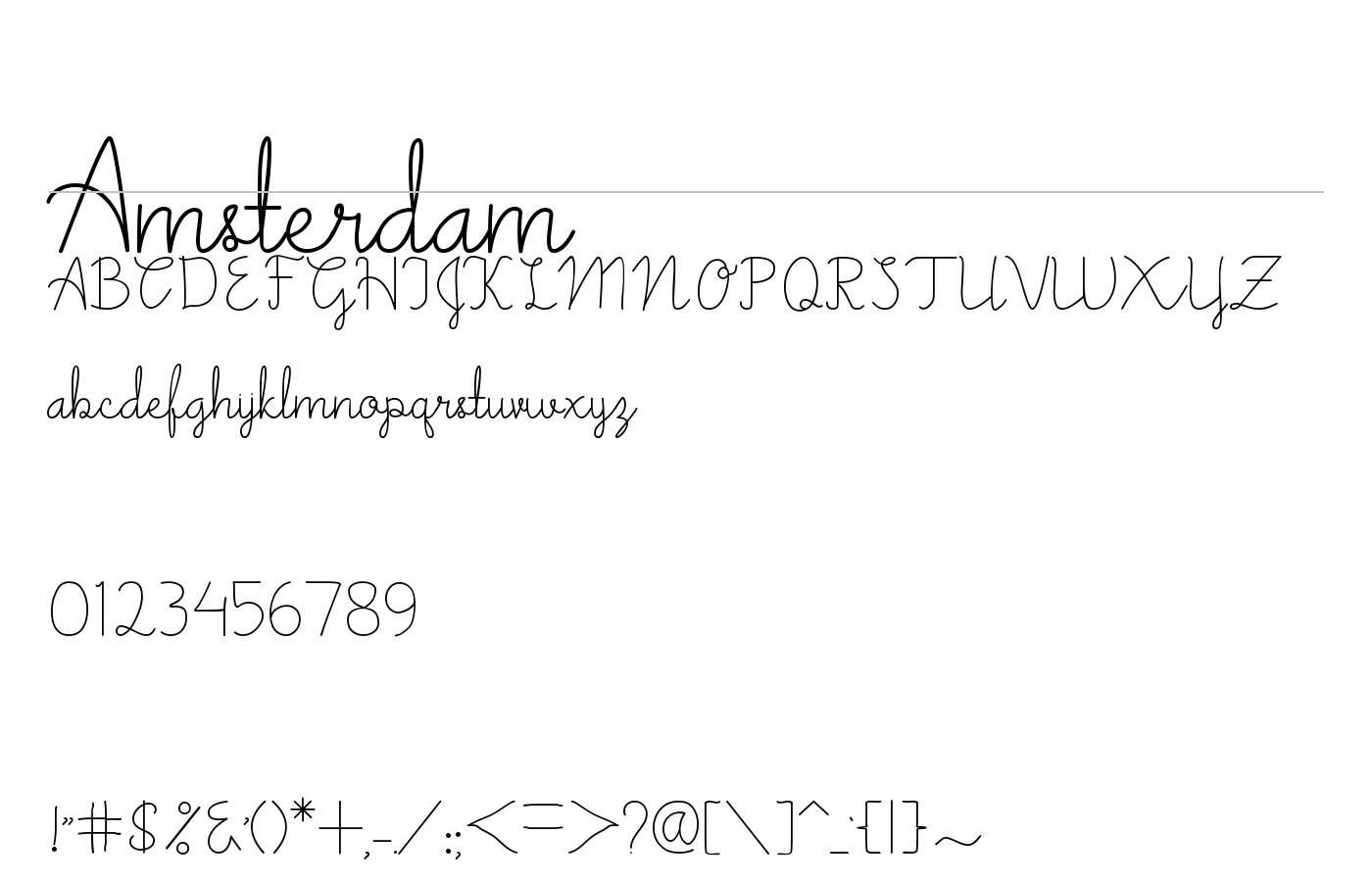
Amsterdam Font is a delicate, whimsical script with a handwritten feel, characterized by its thin, consistent strokes and charmingly quirky letterforms. Its tall, narrow height and graceful curves give it a playful yet elegant personality, ideal for creative projects that seek a personal, artistic touch. This font works wonderfully for invitations, greeting cards, or branding that wants to convey friendliness and lightness with a stylish flair.
Amsterdam Font
About Amsterdam Font